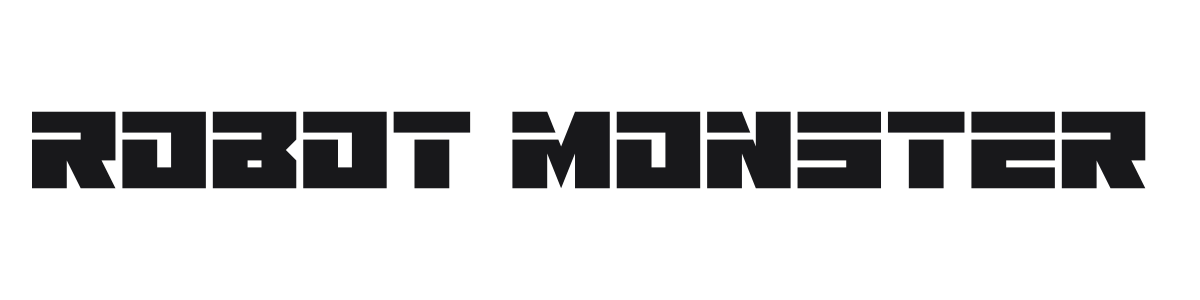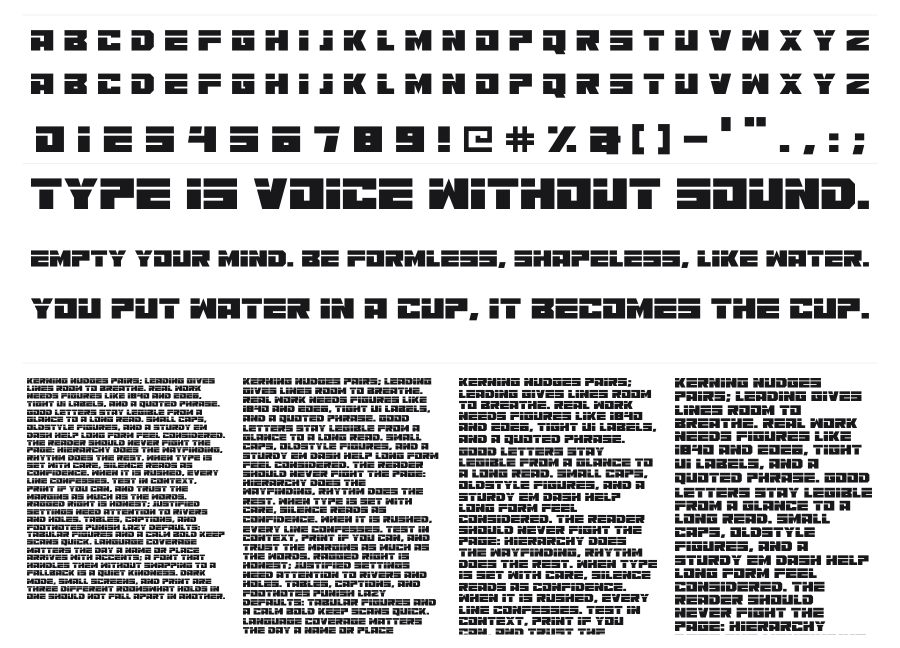
Robot Monster
Robot Monster is a heavy, modular square sans with sharp angular notches cut into its thick block forms, giving it a segmented robotic look. The design channels retro sci-fi and B-movie energy, somewhere between a circuit board diagram and a 1950s monster film title card. It commands attention at large sizes and suits anything that needs to feel mechanical and slightly dangerous.